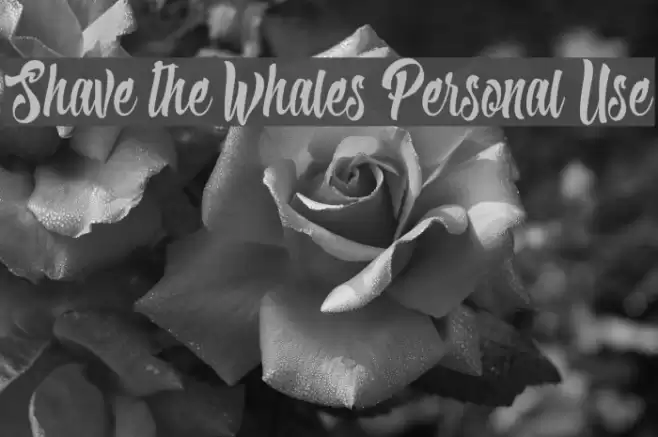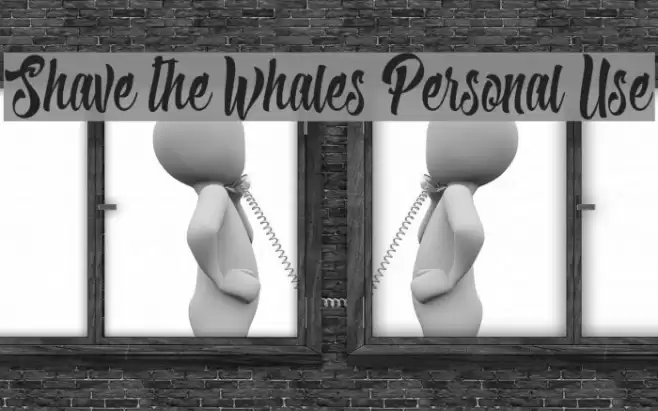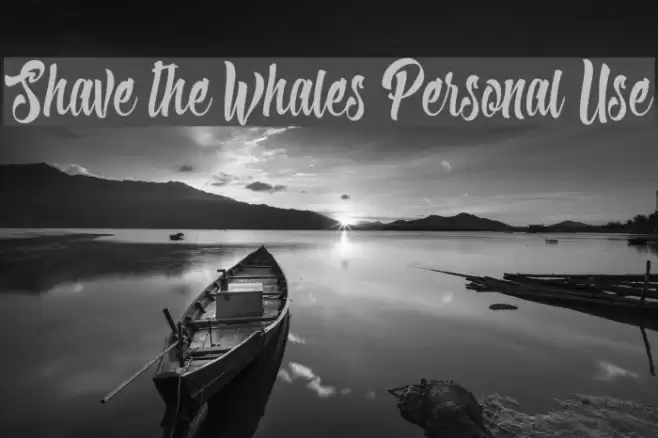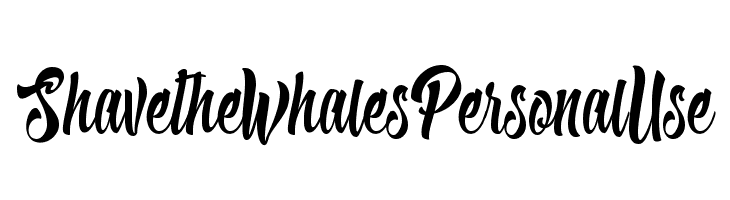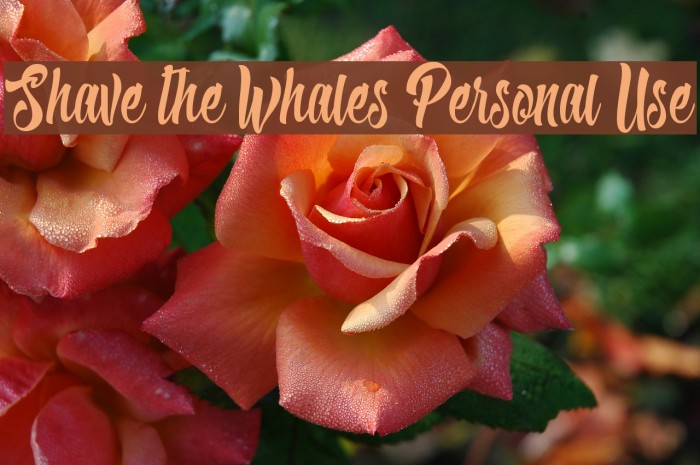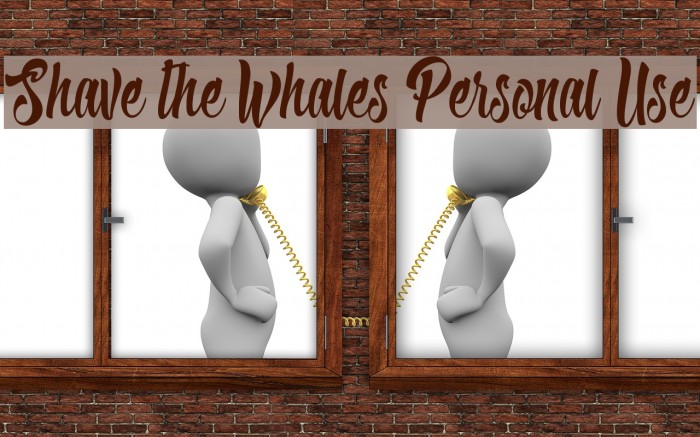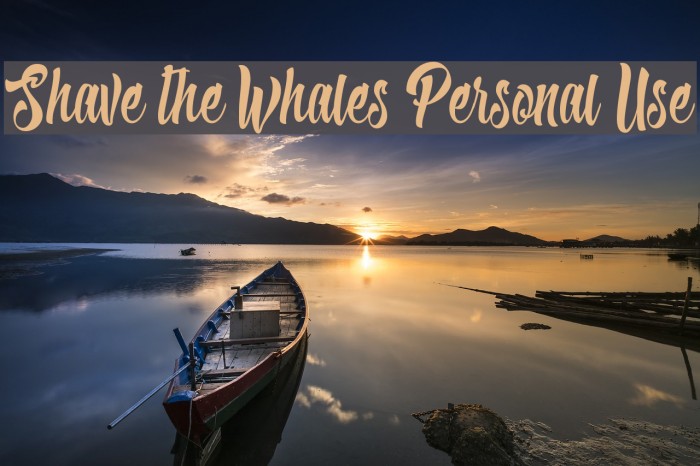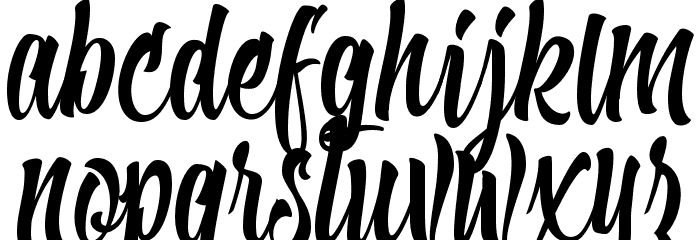
Shave the Whales Personal Use Font
Shave the Whales Personal Use Description
This font features a bold and expressive script style, characterized by its flowing, cursive letterforms. The uppercase letters are particularly ornate, with sweeping curves and loops that give a sense of movement and elegance. The lowercase letters maintain a consistent style, with a slightly more restrained design that complements the uppercase. The numbers and special characters follow the same aesthetic, ensuring a cohesive look across all text. This font's high contrast in stroke thickness adds to its dramatic appearance, making it stand out in any design. The overall style is both modern and decorative, suitable for projects that require a touch of sophistication and flair.
A bold, expressive script font with flowing, cursive letterforms and high contrast from Uncategorized fonts.
- Proposed Projects: Ideal for wedding invitations, branding, packaging, and any design needing an elegant, personal touch.
- Overall Style: Modern, Decorative
- Use Case: Logos, Invitations, Headlines